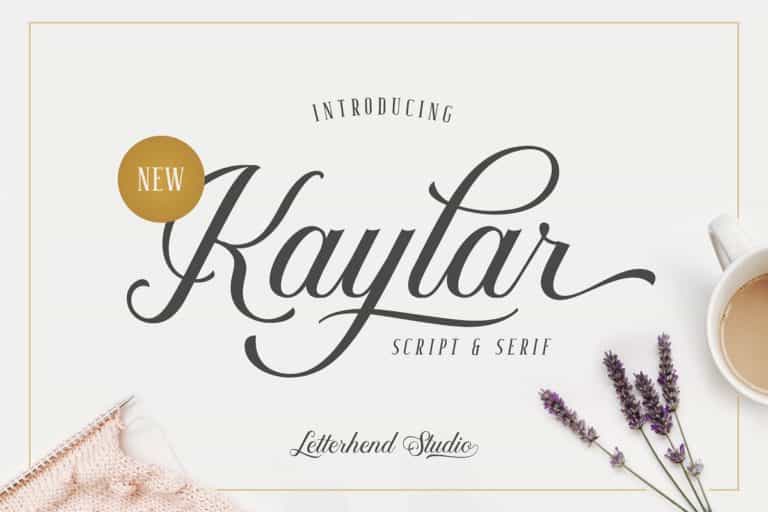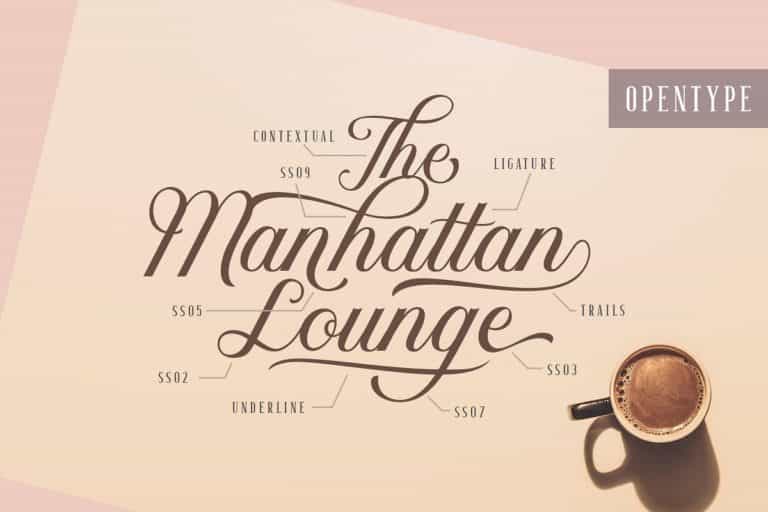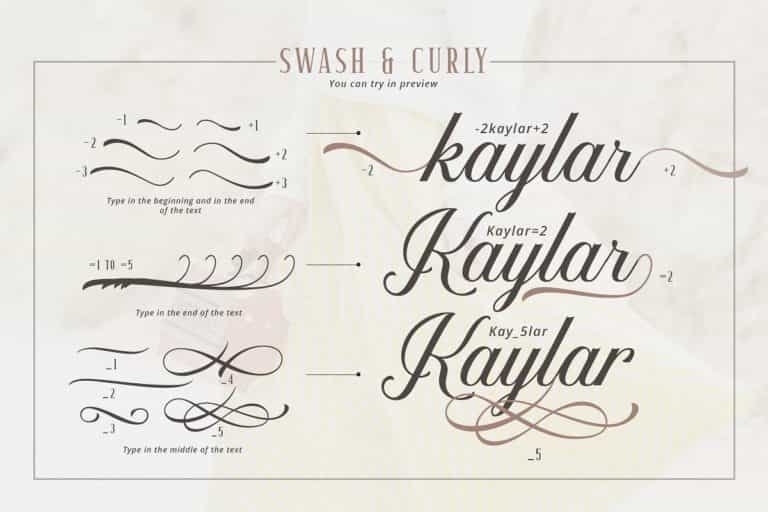
Introducing Kaylar Font. Kaylar is a set of two fonts, one for script and the other for serif. The beauty script and the condensed serif were in a perfect harmony, creating a luxurious and classy aura. What is even more special about this font is its open type feature that lets you to easily enable the swash ornament.